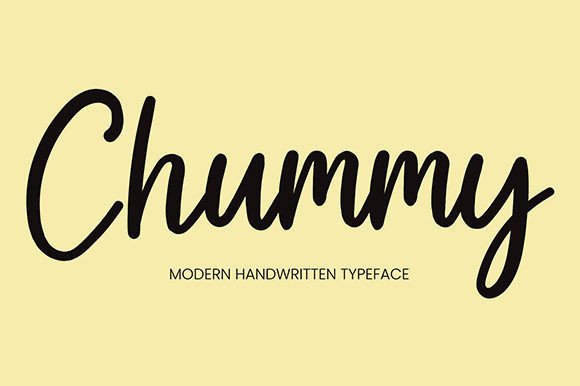
In the realm of typography, there exists a font that transcends the ordinary and captivates the senses with its graceful strokes and alluring charm: the Chummy Font, a masterpiece from the talented Chatype Studio. This exquisite script font possesses an inherent allure that breathes life into your creative projects, leaving an indelible mark on the hearts and minds of your audience.
Unleash your imagination and embark on a typographic journey like no other. Let the Chummy Font guide you as you craft breathtaking logos that command attention and leave a lasting impression. Design blog headers that radiate sophistication and elegance, capturing the essence of your brand's unique story. Transform ordinary invitations into works of art, imbuing them with a timeless charm that reflects the significance of your special occasion.
With Chummy Font as your creative companion, your words will dance across the page with newfound grace and fluidity. Create social media posts that resonate with your audience, drawing them into your captivating world of visual storytelling. Craft posters that ignite curiosity and spark conversations, leaving an imprint on the minds of those who lay eyes upon them. Let your imagination soar as you design stunning ribbons that add a touch of whimsical elegance to your packaging and branding materials.
The Chummy Font is not merely a collection of glyphs; it is a gateway to a realm of creative possibilities. Whether you're a seasoned designer or just starting, this script font will elevate your work to new heights, leaving your audience spellbound. Embrace the beauty of Chummy Font and watch as your designs blossom into masterpieces that captivate and inspire.